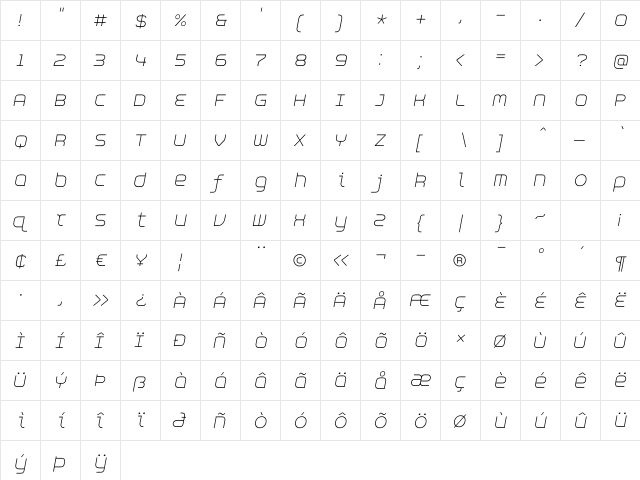
Aspirin AdvanceLight Italic Regular Font Preview
Design Context for Aspirin AdvanceLight Italic Typeface
Aspirin AdvanceLight Italic takes a measured approach to typography — its balanced proportions and neutral character make it a reliable workhorse for both digital and print work. The dynamic lean of this cut emphasises speed and emphasis in any layout. Its slender proportions lend an understated elegance to any composition.